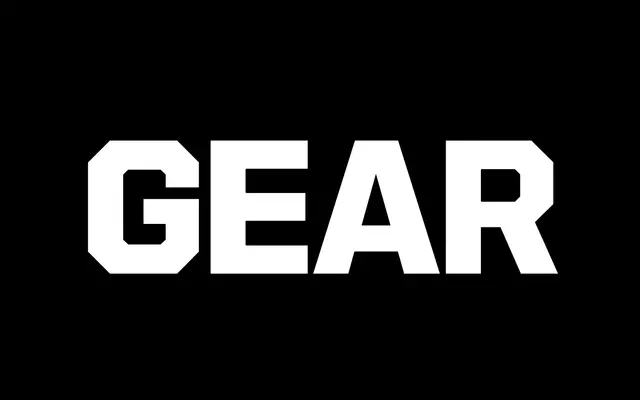
Gear
MCKL · Jeremy Mickel · 2025
Originally commissioned by Adidas and one of the first variable fonts adopted at enterprise scale, this 216-style system spans eight widths and nine weights with upright, slanted and backslanted cuts built around sharp octagonal forms.
Designed by Jeremy Mickel and published in 2025 after evolving from a 2018 Adidas commission, the family now runs from XXNarrow to XXXWide across nine weights from XXLight to Ultra, each available in roman, slant and backslant. The octagonal construction gives every width a consistent mechanical tension, while the variable font enables smooth interpolation across all axes for space-filling display work. A full lowercase was added during development alongside refined proportions and an extended glyph set with multiple stylistic alternates.
Sharp octagonal letterforms with an extreme range of widths and weights, plus slanted and backslanted variants, place this firmly in the display category. Its origins as an Adidas commission and its aggressive, sport-inflected geometry align it with geometric display rather than any text-oriented classification.